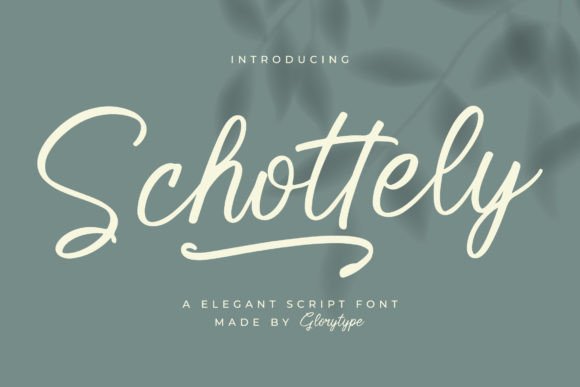
Schottely Font: The Gateway to Visual Enchantment
In a realm where aesthetics reign supreme, Schottely Font emerges as a beacon of elegance and grace. Designed by the visionary artists at Glorytype Studio, this script font embodies the essence of sophistication, inviting you to elevate your creative endeavors to new heights of visual splendor.
Journey into the world of Schottely, where every letter dances with a unique charm, captivating the hearts of design enthusiasts worldwide. Its sweeping strokes and delicate curves evoke a sense of timeless beauty, reminiscent of handwritten scripts from a bygone era.
With Schottely as your creative ally, transform your designs into masterpieces that resonate with your audience. Picture your logo adorned with the refined lines of Schottely, exuding an air of professionalism and elegance that sets you apart from the ordinary. Let your branding projects radiate with a touch of timeless charm, leaving an unforgettable impression on all who encounter them.
Unleash your creativity with Schottely as your muse. Craft homeware designs that whisper stories of warmth and comfort, evoking a sense of nostalgia for simpler times. Adorn your product packaging with Schottely's graceful strokes, creating an aura of exclusivity that captivates customers at first glance.
Imagine your quotes, posters, and shopping bags brought to life with the allure of Schottely. Each letter becomes a work of art, drawing the eye and igniting a spark of inspiration. Let your t-shirts, book covers, and name cards speak volumes about your impeccable taste, exuding an effortless sophistication that commands attention.
With Schottely at your fingertips, transform your invitation cards, greeting cards, and labels into cherished keepsakes. Its delicate touch adds a personal touch that elevates these ordinary items into extraordinary expressions of love and care.
Delve into the realm of photography and let Schottely serve as your artistic muse. Its graceful curves and elegant flourishes lend an air of ethereal beauty to your images, capturing the essence of special moments and turning them into treasured memories.
Schottely is more than just a font; it's an invitation to step into a world of enchantment, where design dreams take flight. Its versatility knows no bounds, making it the ideal companion for a myriad of creative projects, from the whimsical to the profound.
Embrace the magic of Schottely and unlock the boundless potential of your imagination. Let its elegant strokes guide you as you create visual masterpieces that captivate and inspire, leaving an indelible mark on the hearts of all who behold them.